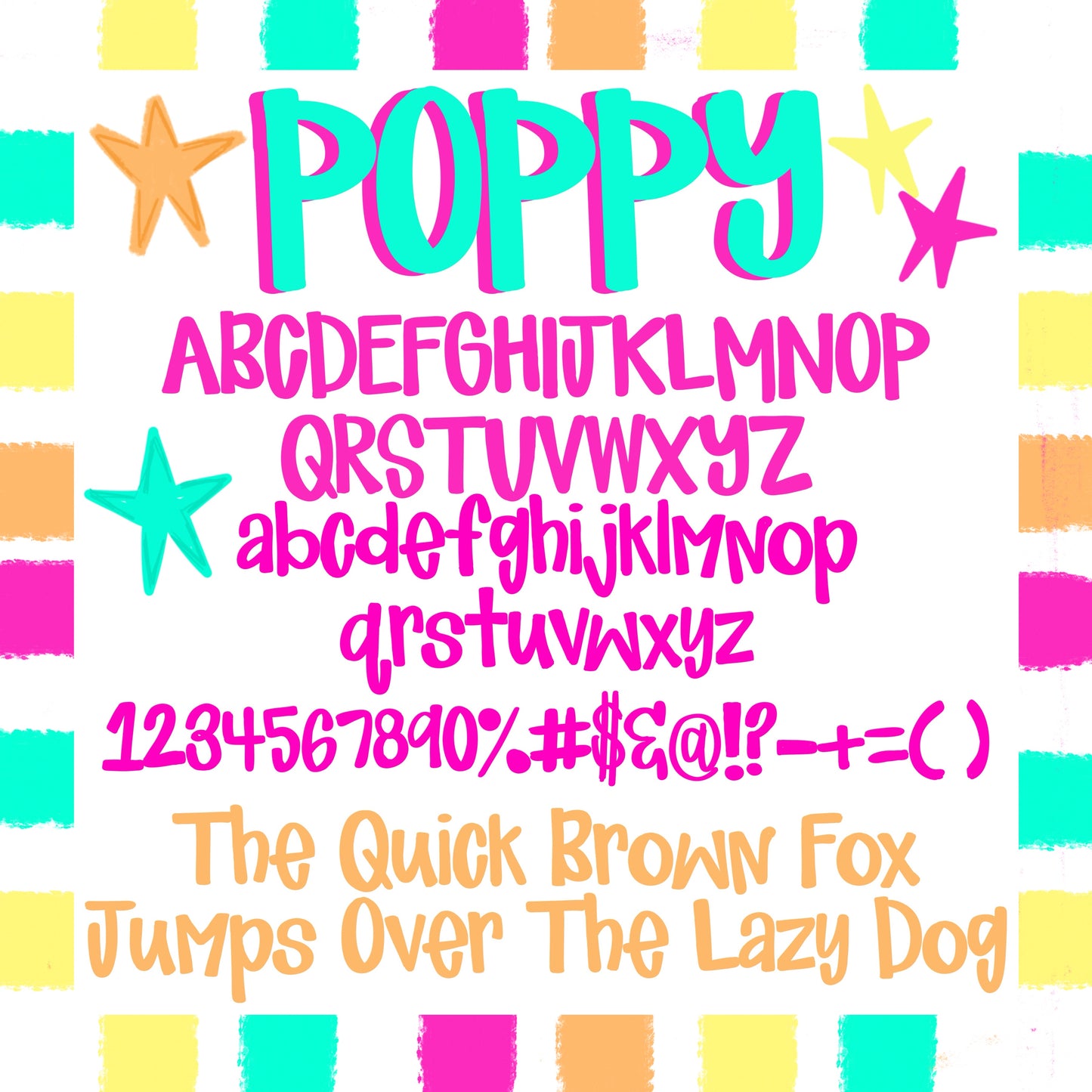
Poppy Hand-Drawn Font
This is a super cute hand-drawn font! This font can be used for personal use only. If you want to sell digital designs using this font you MUST purchase a license for an additional $15.